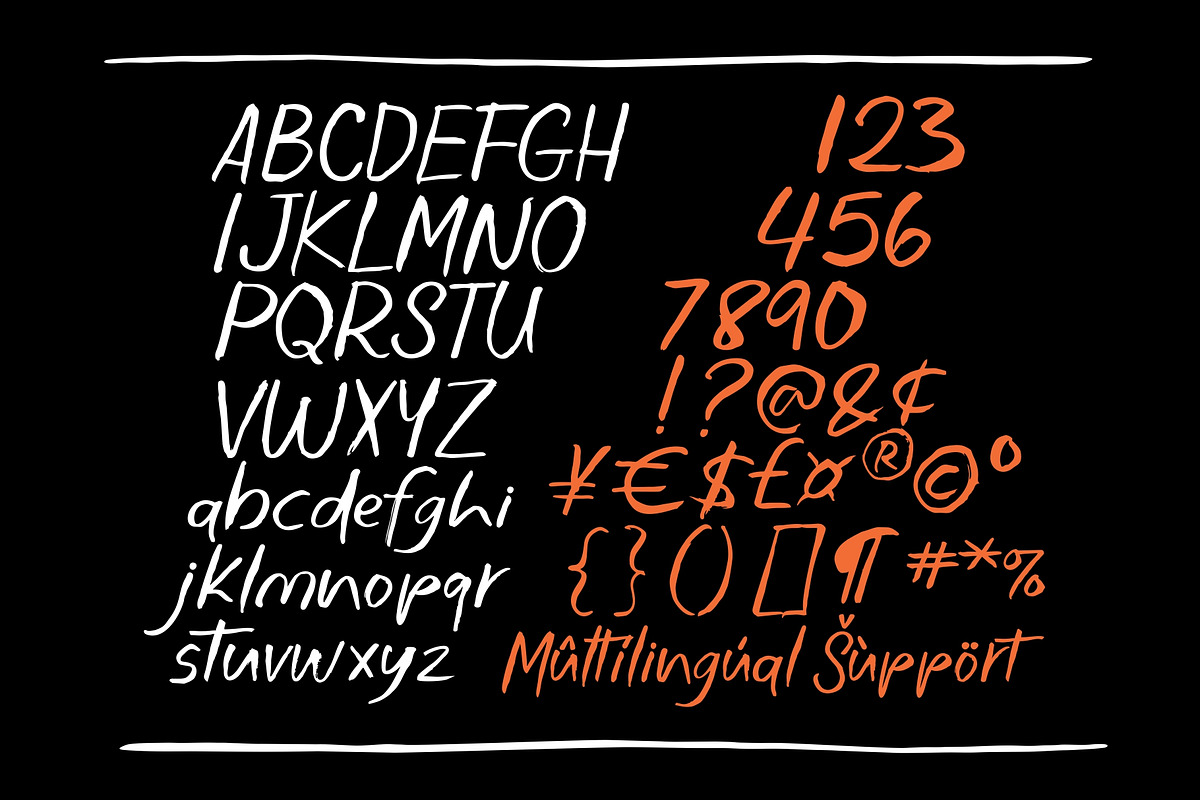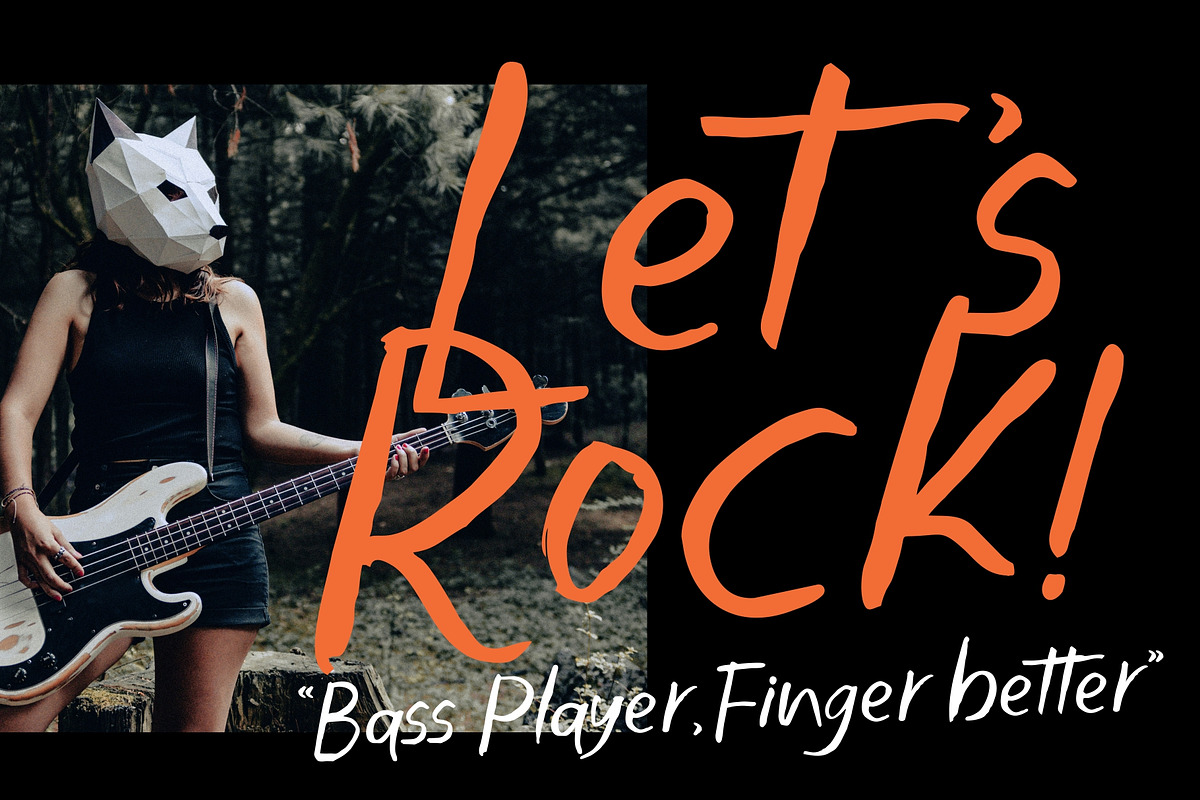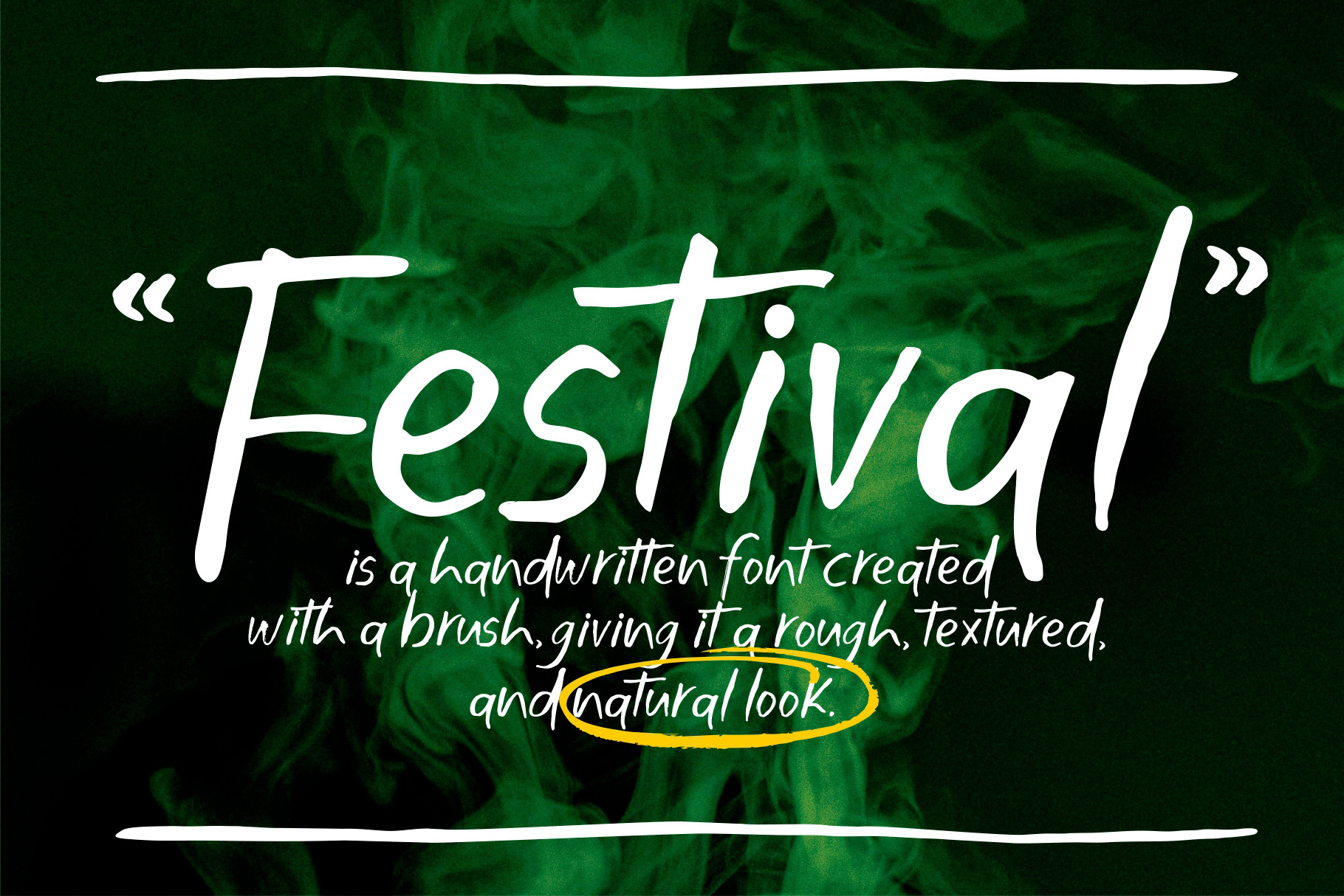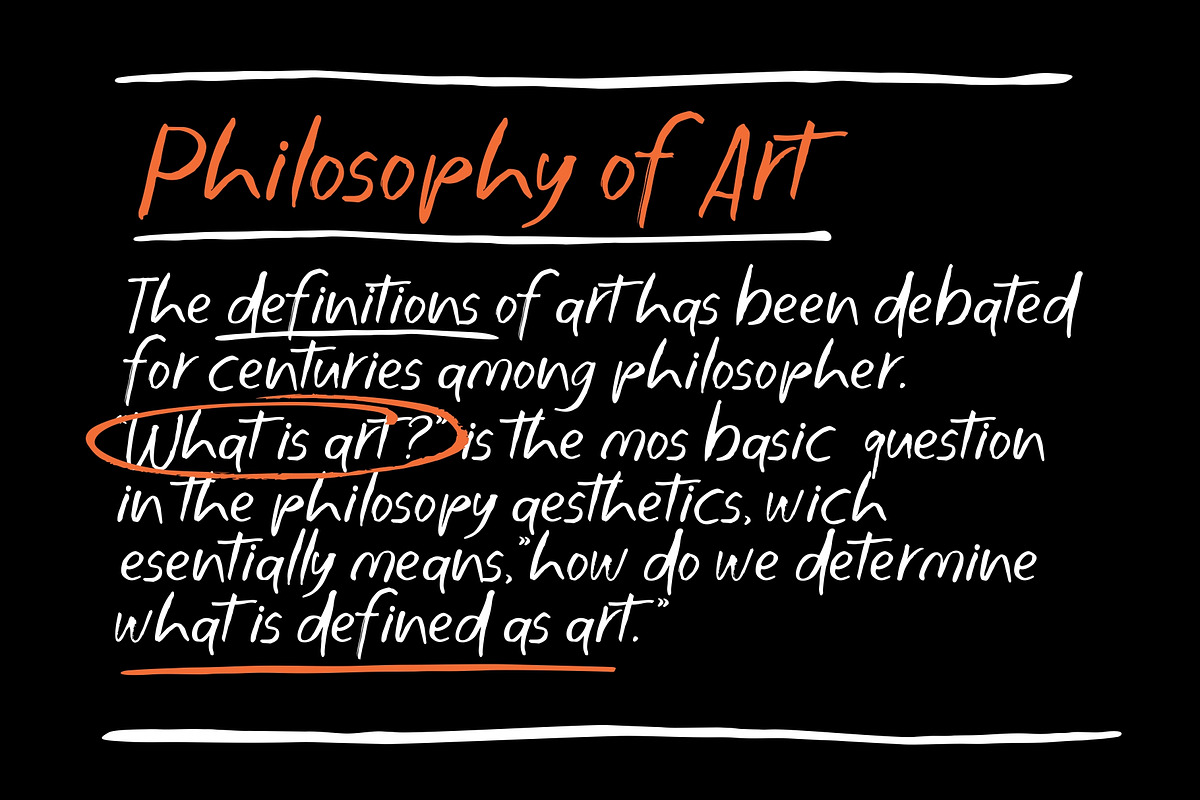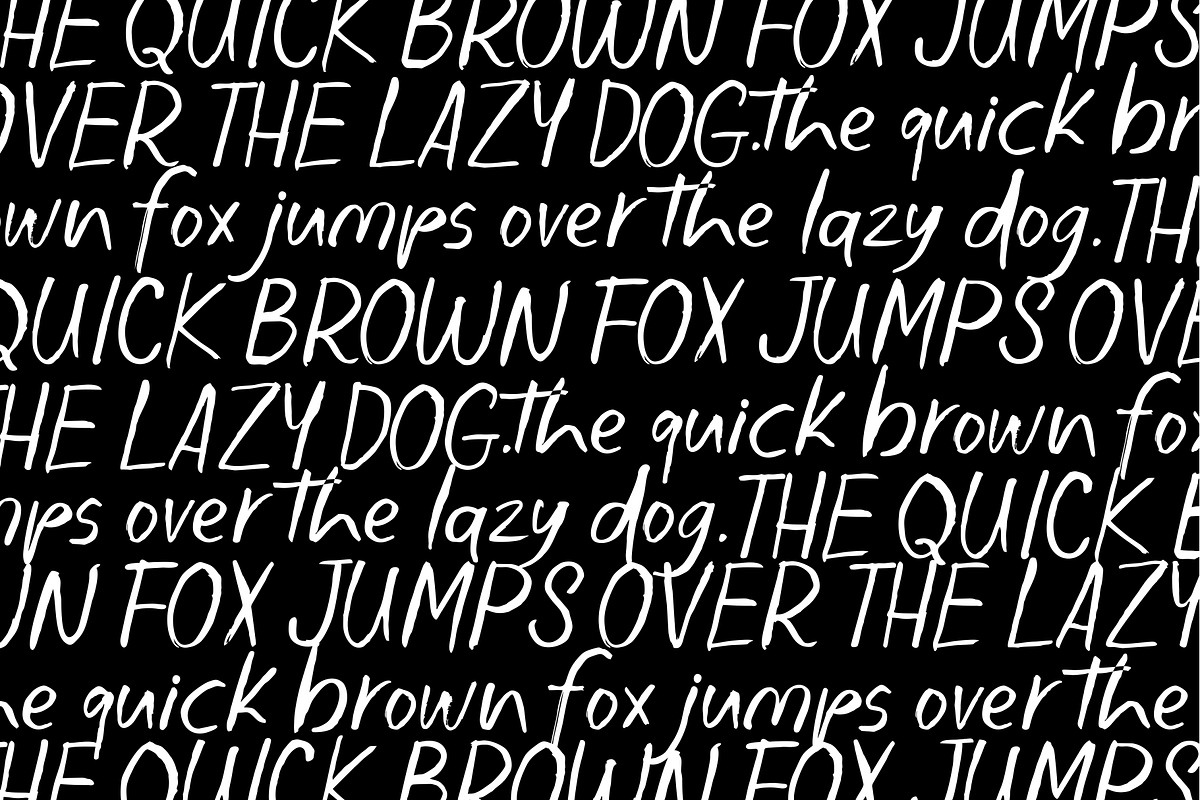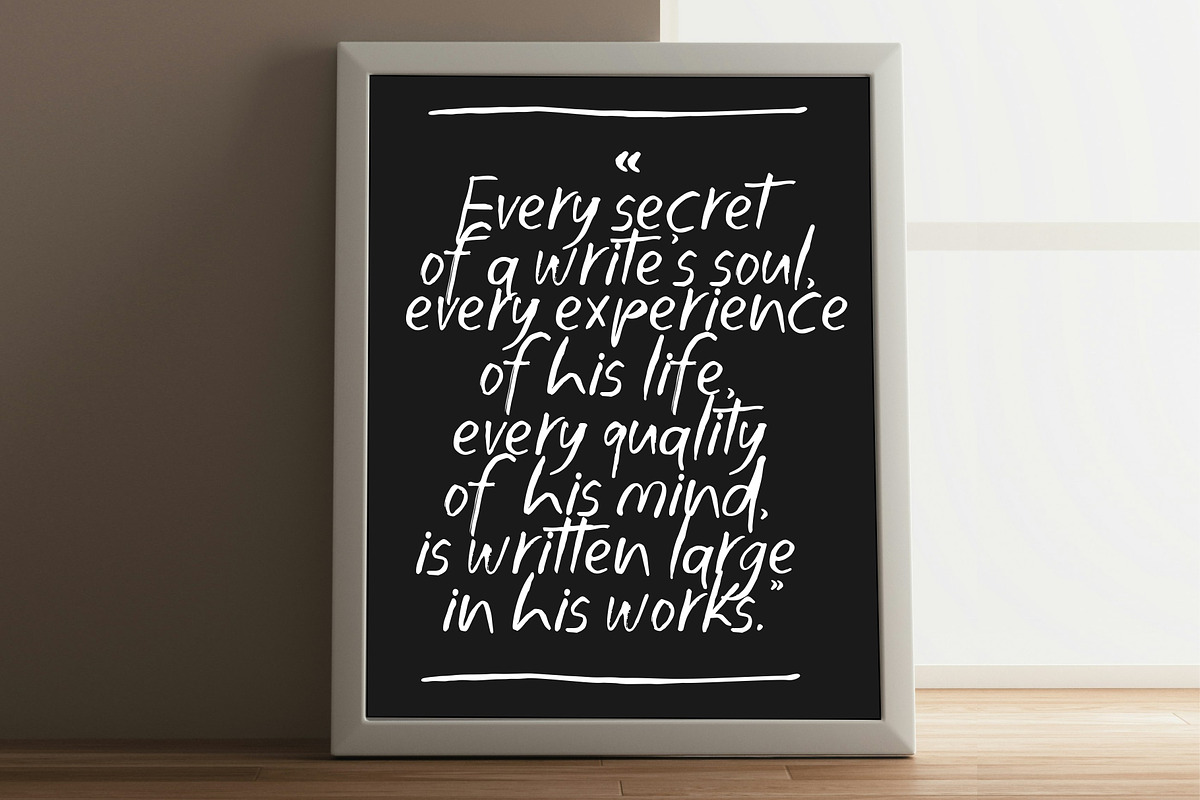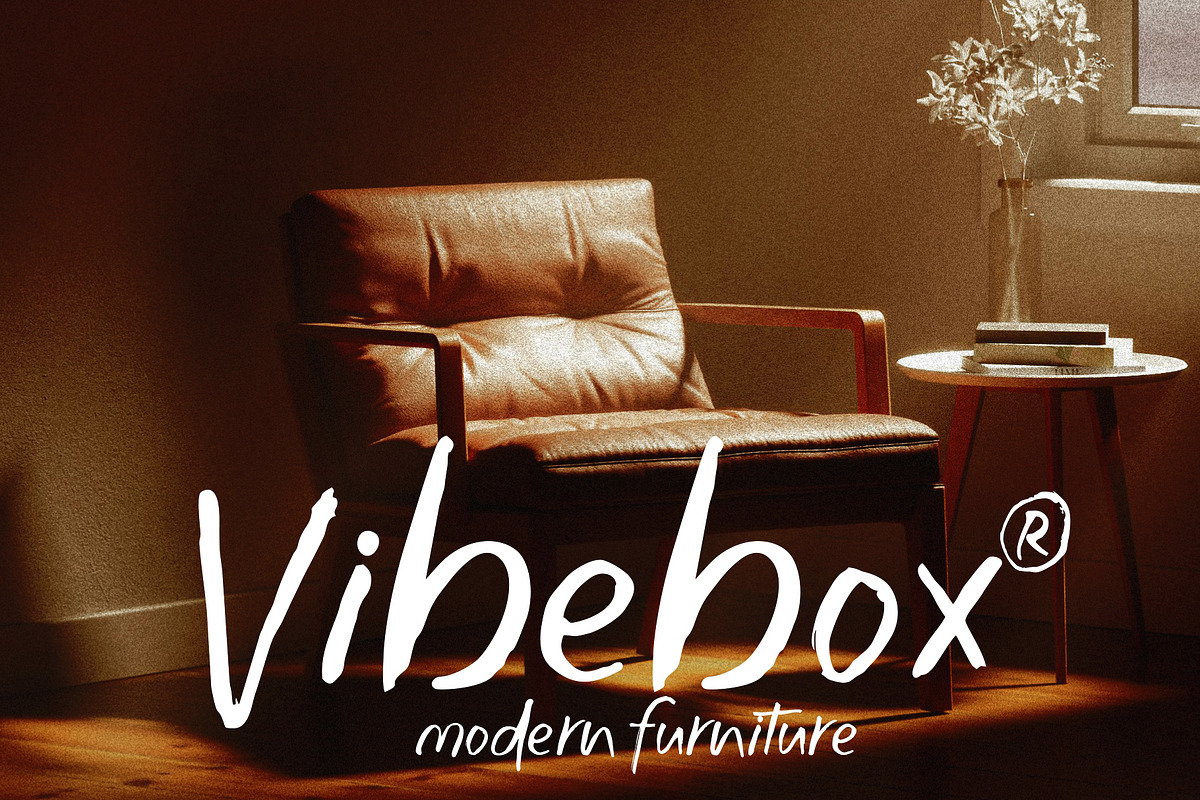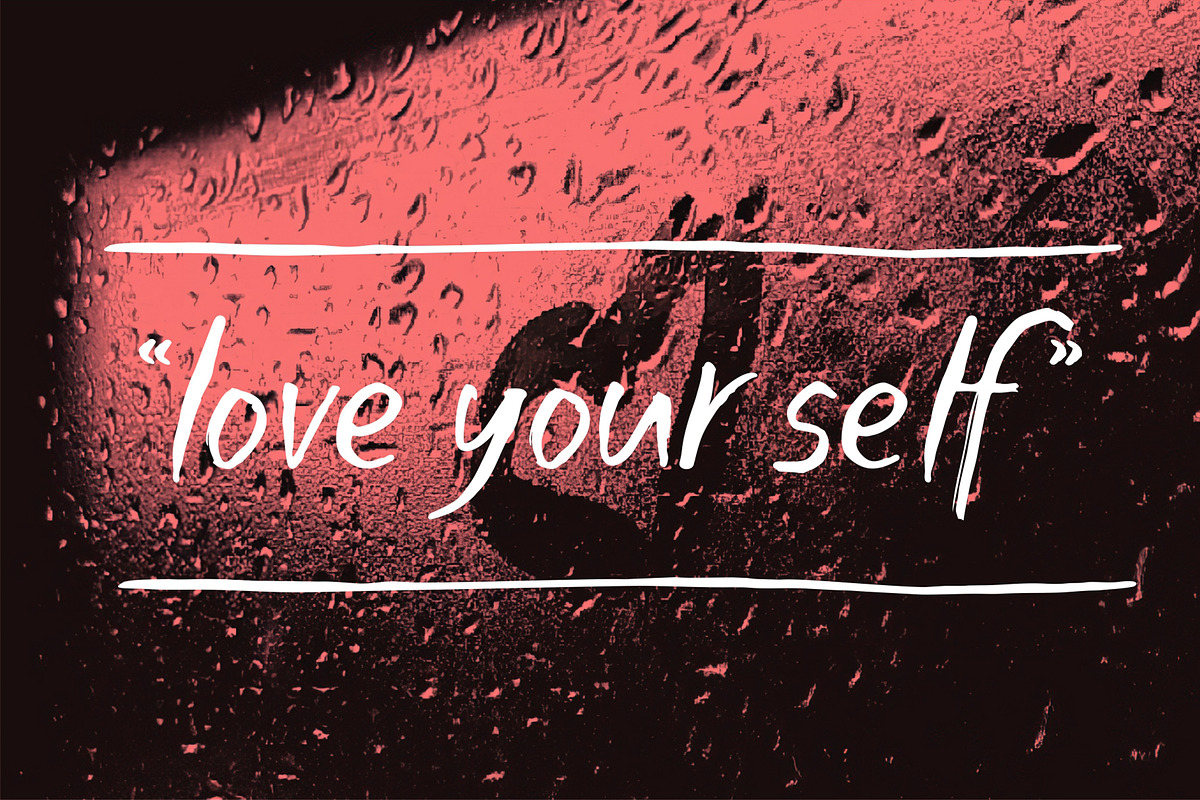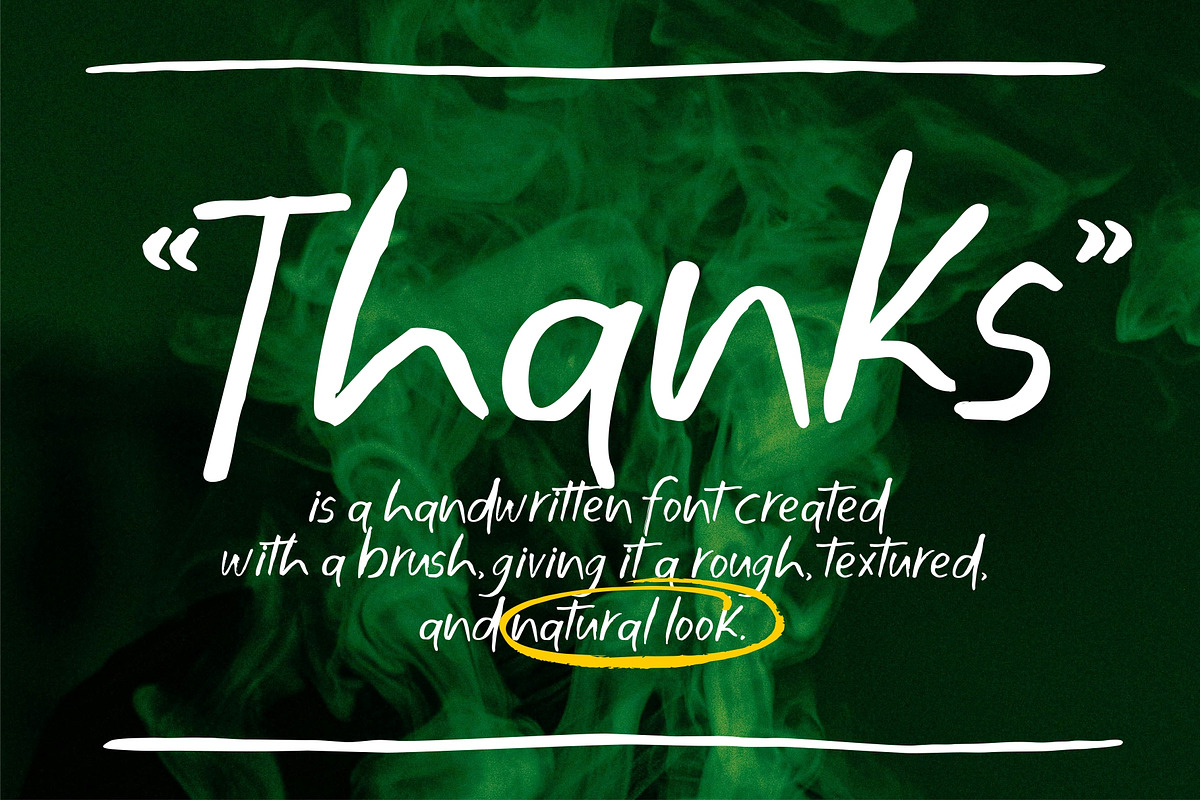
Festival - Handwriting Brush Font
Festival is a handwritten font created with a brush, giving it a rough, textured, and natural look, This is a perfect handwritten font for any project.
- numeric & Multilingual support